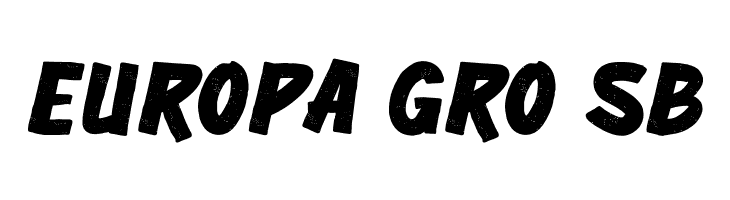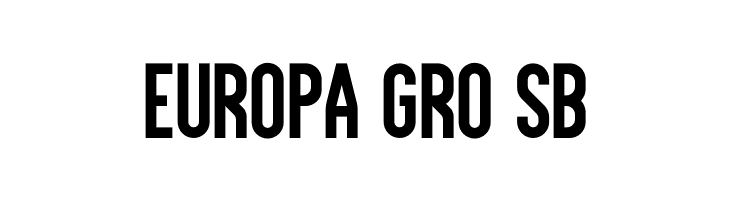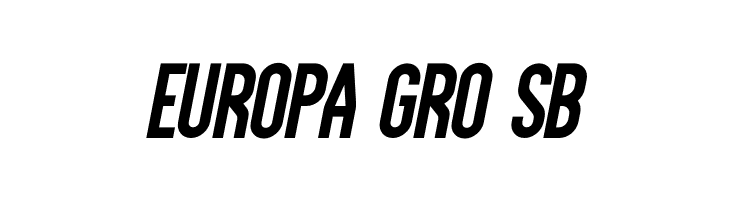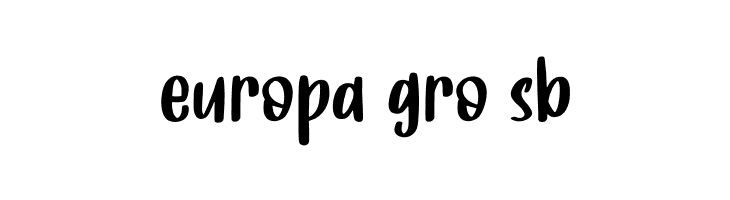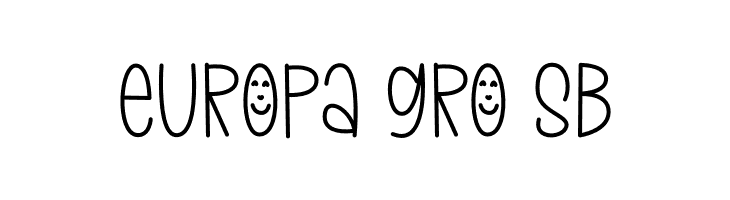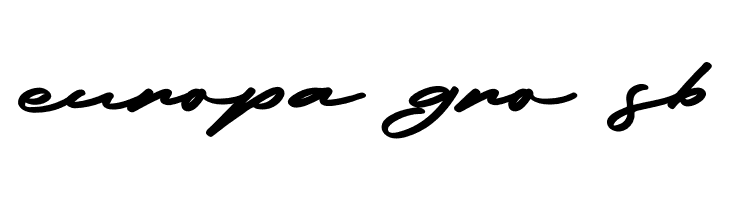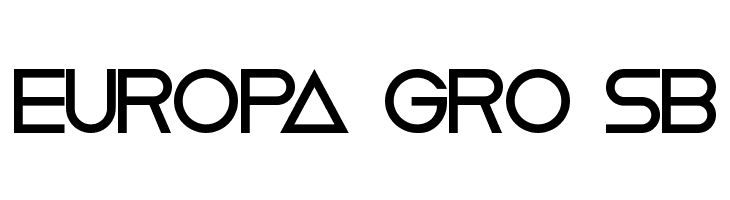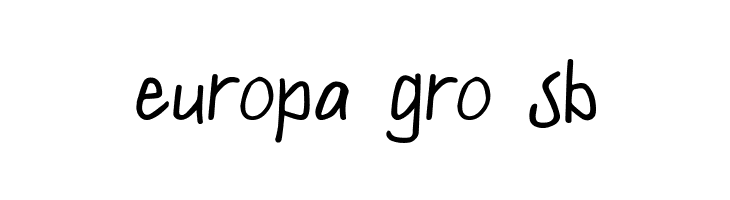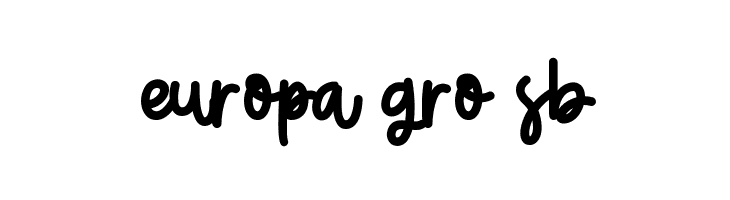
• FrederickFree
A classic and elegant script font with fluid, connected letterforms.
• FrederickSans
A bold, modern sans-serif font with a condensed and geometric style.
• FrederickSans Italic
A bold, italic sans-serif font with a modern and dynamic style.
• Free Holiday
A playful, hand-drawn font with tall, narrow letters and a whimsical style.
• Free Stop Demo
A geometric, modern font with clean lines and a futuristic design.
• Freebie
A playful, bold handwritten font with a lively and energetic style.
• FreelancerRegular
A bold, textured font with a vintage, handcrafted look.
• Fresh Beverage
A bold, handwritten font with a playful and friendly style.
• Fresh Clinn
A playful, informal handwritten font with a casual and friendly vibe.
• Fresh Honey
A playful, bold handwritten font with smooth, rounded strokes.